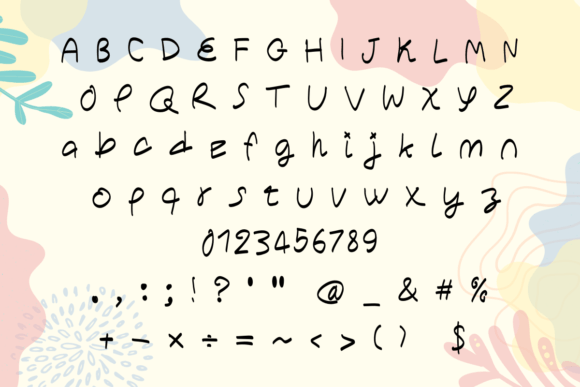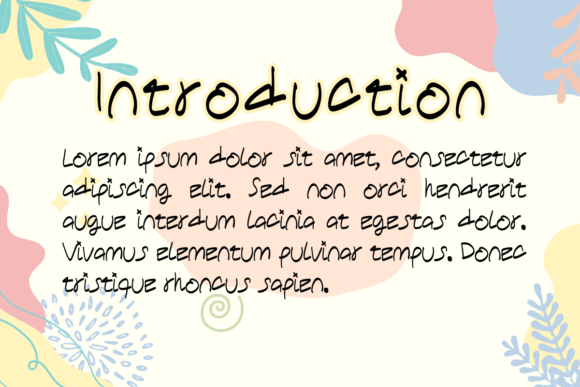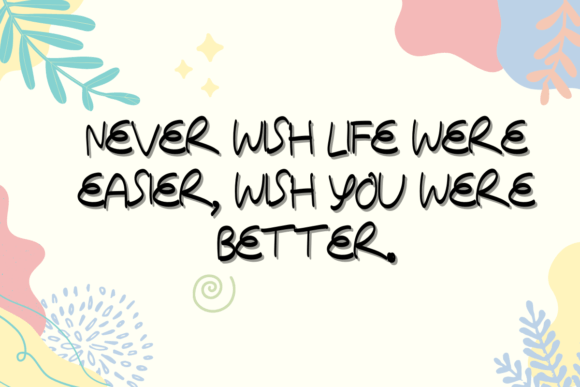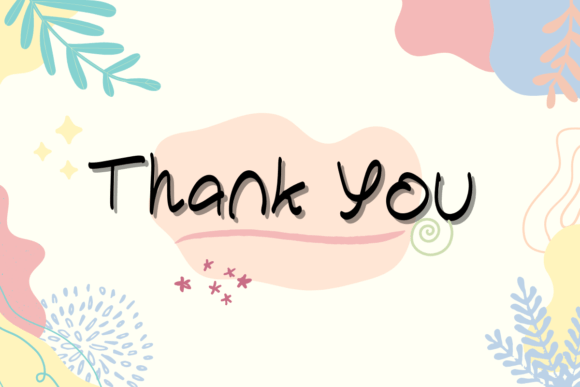
Introduction to Moussecake Font Font
Fonts play a crucial role in design, and the Moussecake Font font is a typeface that brings both character and versatility to any project. Whether you’re working on a branding project, a website, or a print design, the Moussecake Font font offers a unique style that can elevate your work.
| 📌 Font Name | Moussecake Font |
| 👤 Author | Sirinart |
Moussecake is a friendly and beautiful handwritten font.
You can use it for taking notes, writing a diary, or making greeting cards It can also be used for other designs, such as banners, content, mugs, cards, shirts, stationery, social media posts, and more.
Key Features of Moussecake Font Font
Why Choose Moussecake Font Font?
The Moussecake Font font is more than just a typeface – it’s a design tool that helps you communicate your message with style and clarity. Its unique character set and versatile design make it suitable for a wide range of applications, from elegant invitations to bold headlines.
With its carefully crafted letterforms and balanced proportions, the Moussecake Font font ensures readability and visual appeal across all mediums.
What makes Moussecake Font font special?
The Moussecake Font font stands out with its unique design, exceptional readability, and versatility across various design applications.